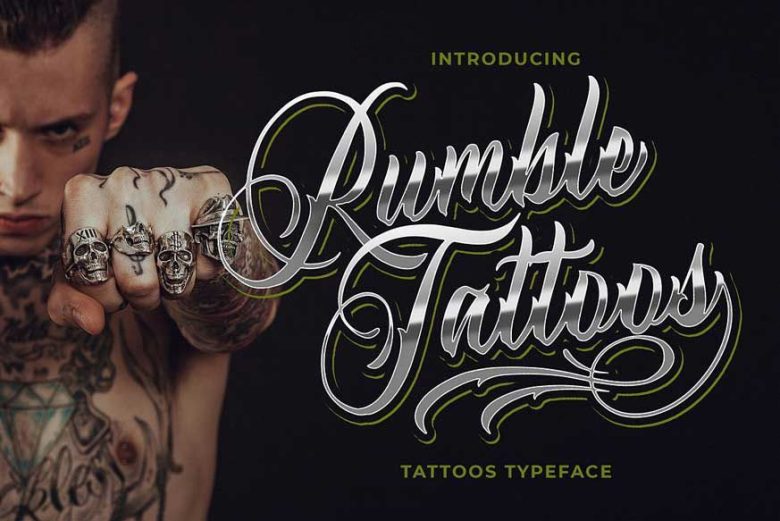
Introducing a new Script typeface called Rumble Tattoos Typeface.
Rumble Tattoos good for logotype tattoos, poster tattoos, Merchandise Tattoos.
Introducing a new Script typeface called Rumble Tattoos Typeface.
Rumble Tattoos good for logotype tattoos, poster tattoos, Merchandise Tattoos.